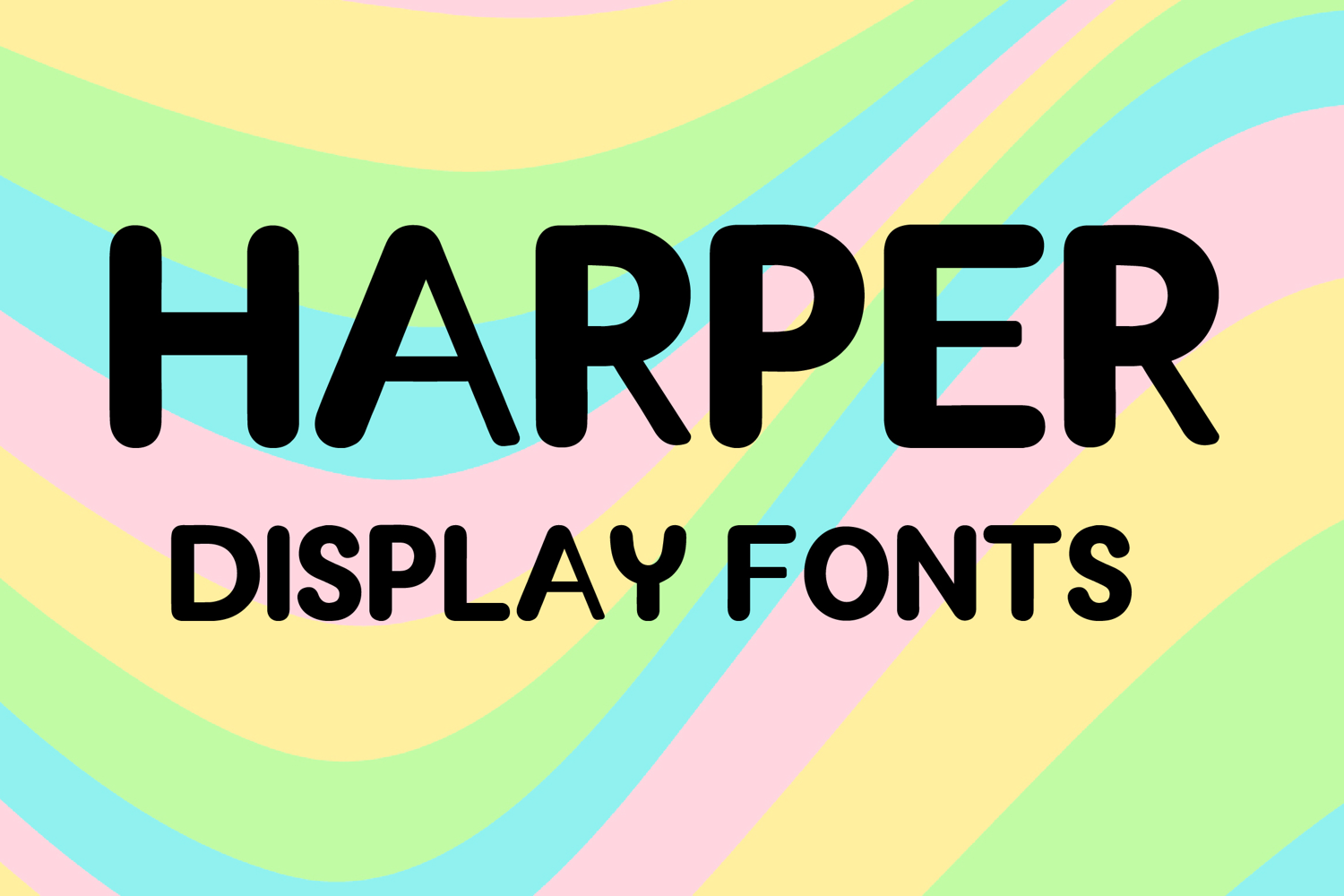
HARPER
HARPER is a bold modern display font with a playful rounded style and clean geometric charm. Its uppercase letterforms feature thick smooth strokes, soft corners, and a friendly balanced structure that creates a fresh, fun, and eye-catching look. Designed with uppercase letters A–Z and numbers 0–9, HARPER is perfect for branding, posters, packaging, logos, headlines, social media graphics, and creative projects that need a cheerful and memorable statement.